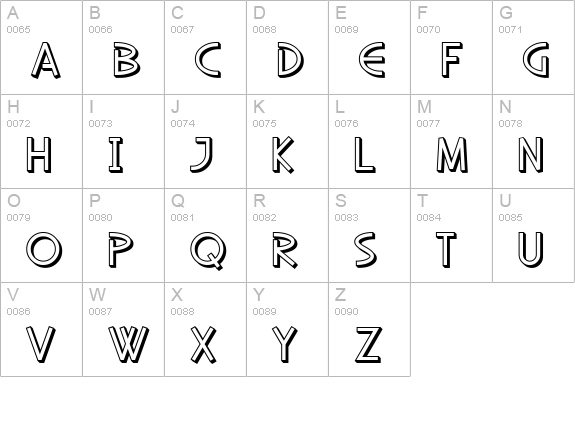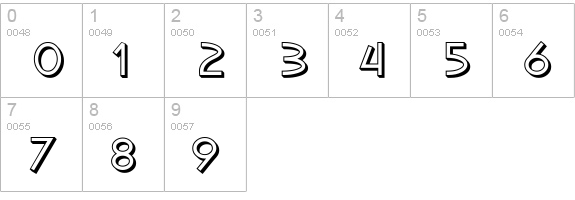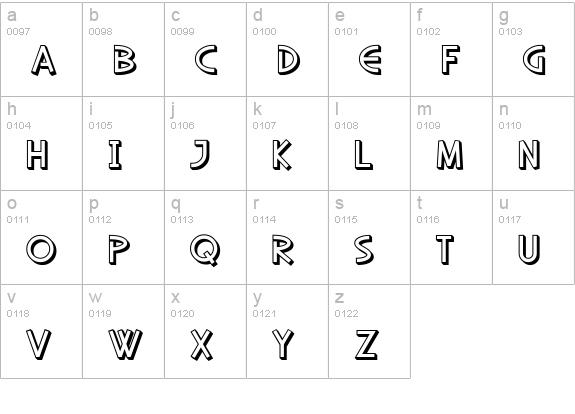
SF Diego Sans Shaded Font Details
Introducing the stunning SF Diego Sans Shaded font, a typeface that effortlessly captures attention with its unique shading and contemporary design. This font combines the timeless elegance of the Diego Sans family with a modern twist, resulting in a truly captivating and versatile typeface. With its bold and eye-catching appearance, SF Diego Sans Shaded is perfect for a wide range of projects, from eye-catching headlines and magazine covers to logos, signage, and branding materials. Its intricate shading adds depth and dimension to any design, making it stand out from the crowd and leaving a lasting impression. What makes SF Diego Sans Shaded even more remarkable is that it is available for free download at FontsMarket.com. Yes, you read that right – this fantastic font can be yours without spending a penny! FontsMarket.com offers a wide selection of high-quality fonts, and SF Diego Sans Shaded is just one of the many gems waiting to be discovered. So why wait? Enhance your designs, elevate your creative projects, and make a bold statement with SF Diego Sans Shaded. Download it for free today at FontsMarket.com and unlock a world of endless possibilities.